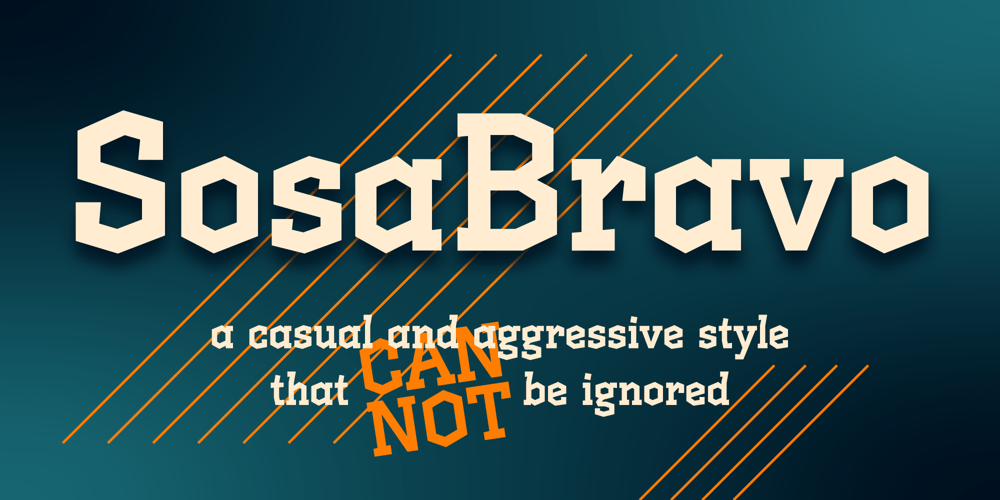
SosaBravo Font Family was designed by Alejandro Yñigo and published by Alejandro Yñigo. SosaBravo contains 1 styles and family package options. “SosaBravo” is a font with a unique design… Its shapes are defined only by straight lines and the compositions that can be made communicate a casual and aggressive style that cannot be ignored. The structure of its glyphs and its anatomical details will transmit dynamism and freedom in each design where it appears. It is a font inspired by the work of the Cuban artist Manuel Alfredo Sosabravo, with his own very personal, pictorial and aggressive style, as this font is.